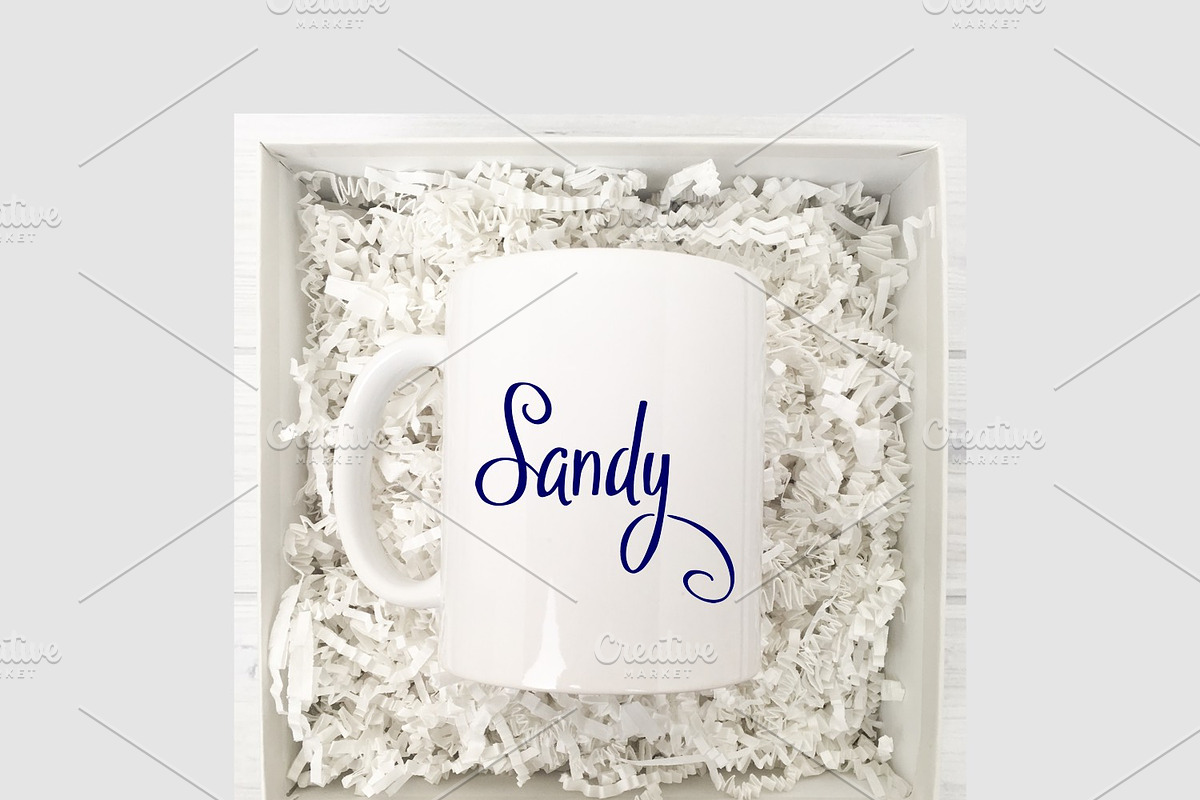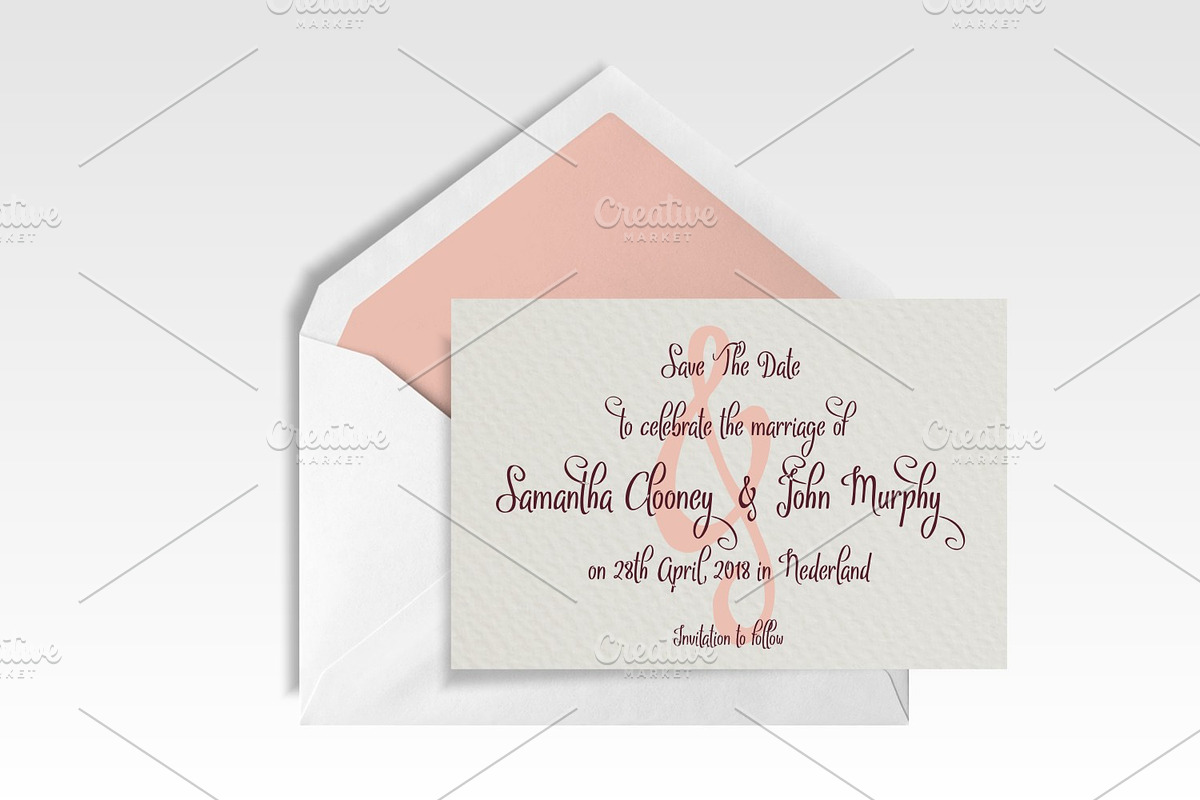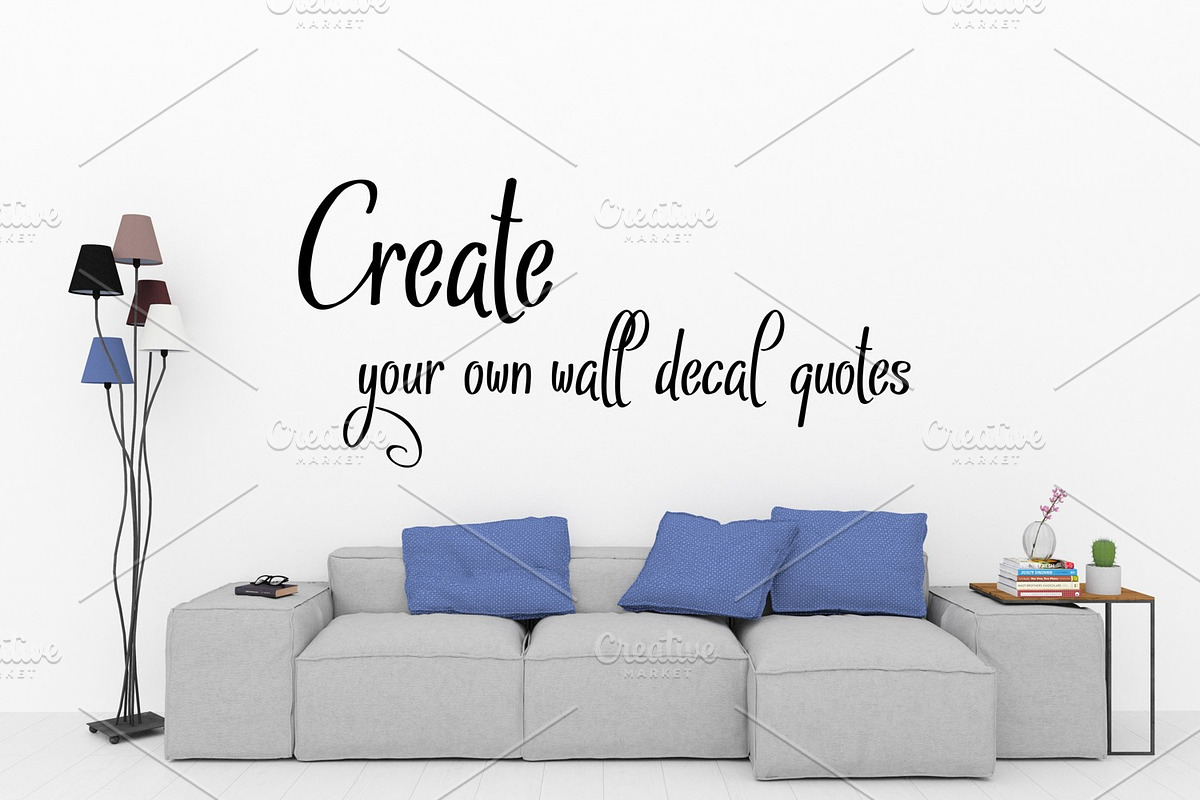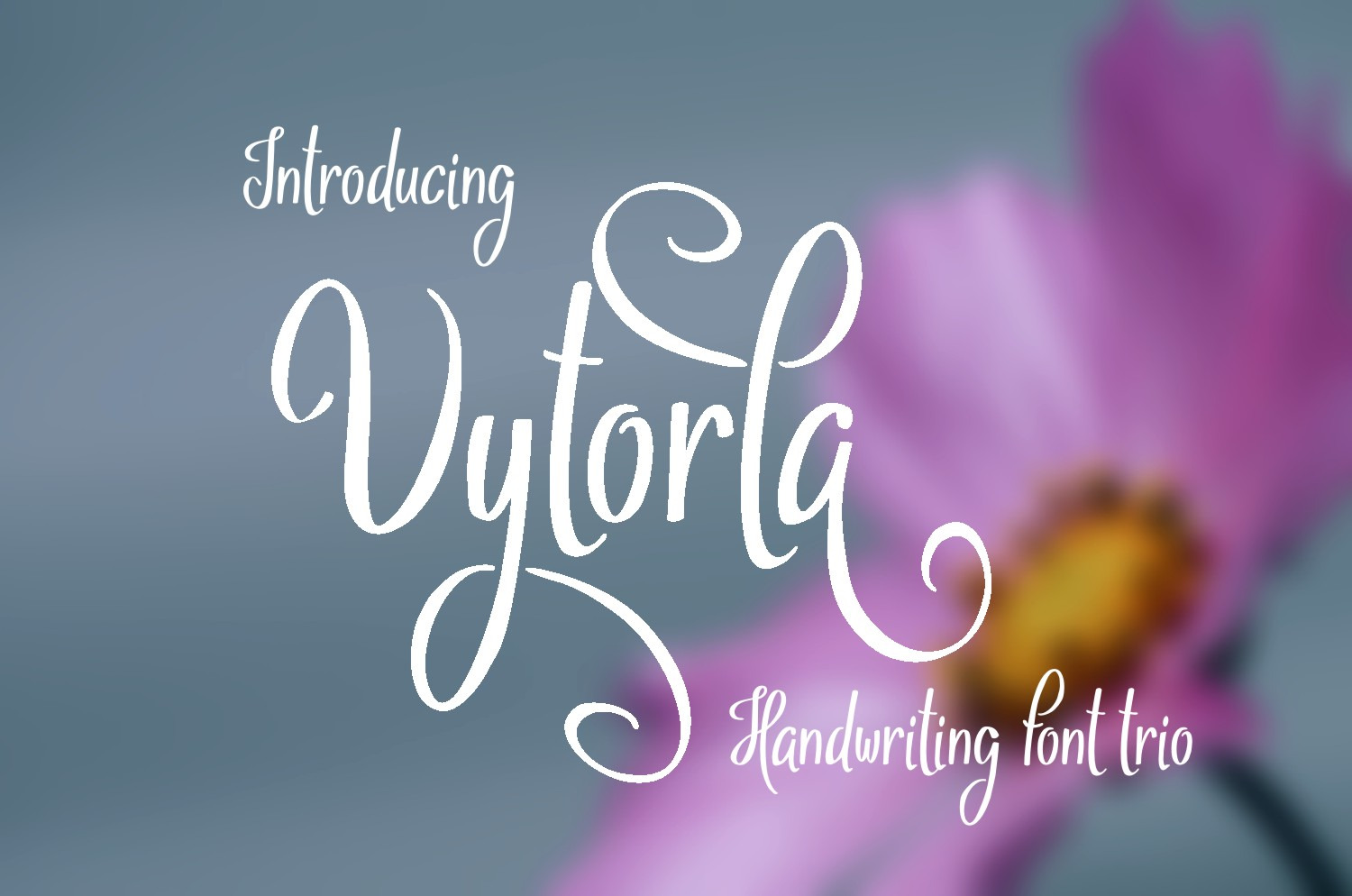
Vytorla Font Trio
Introducing Vytorla handwriting font trio.
Perfect for wedding desings and many other creative craft area such as stencils, engraving, laser cutting and more!